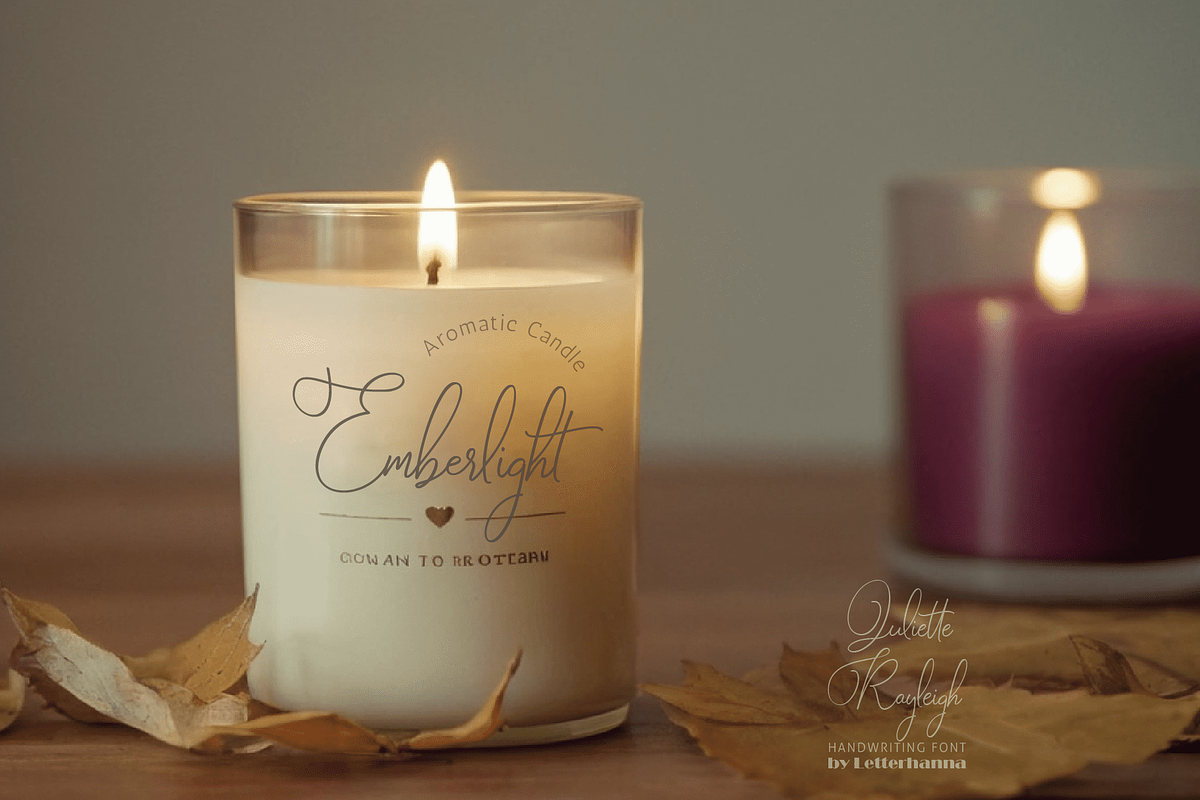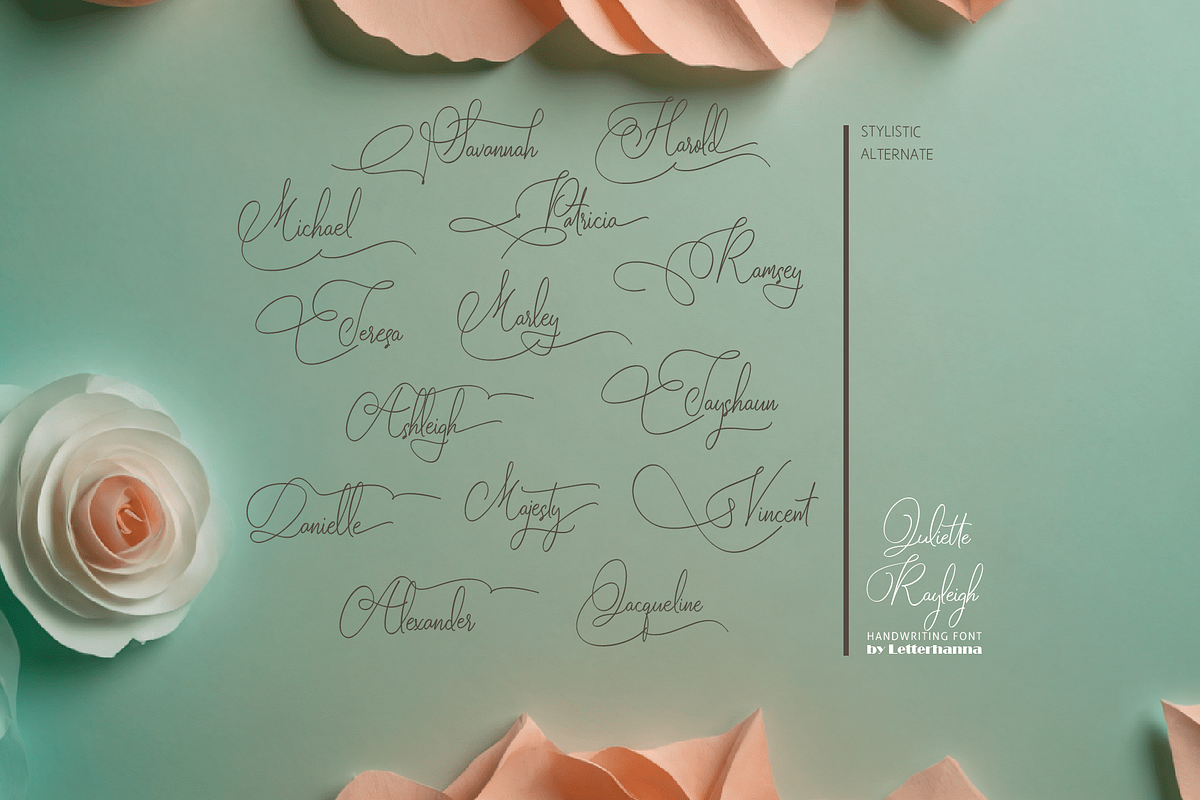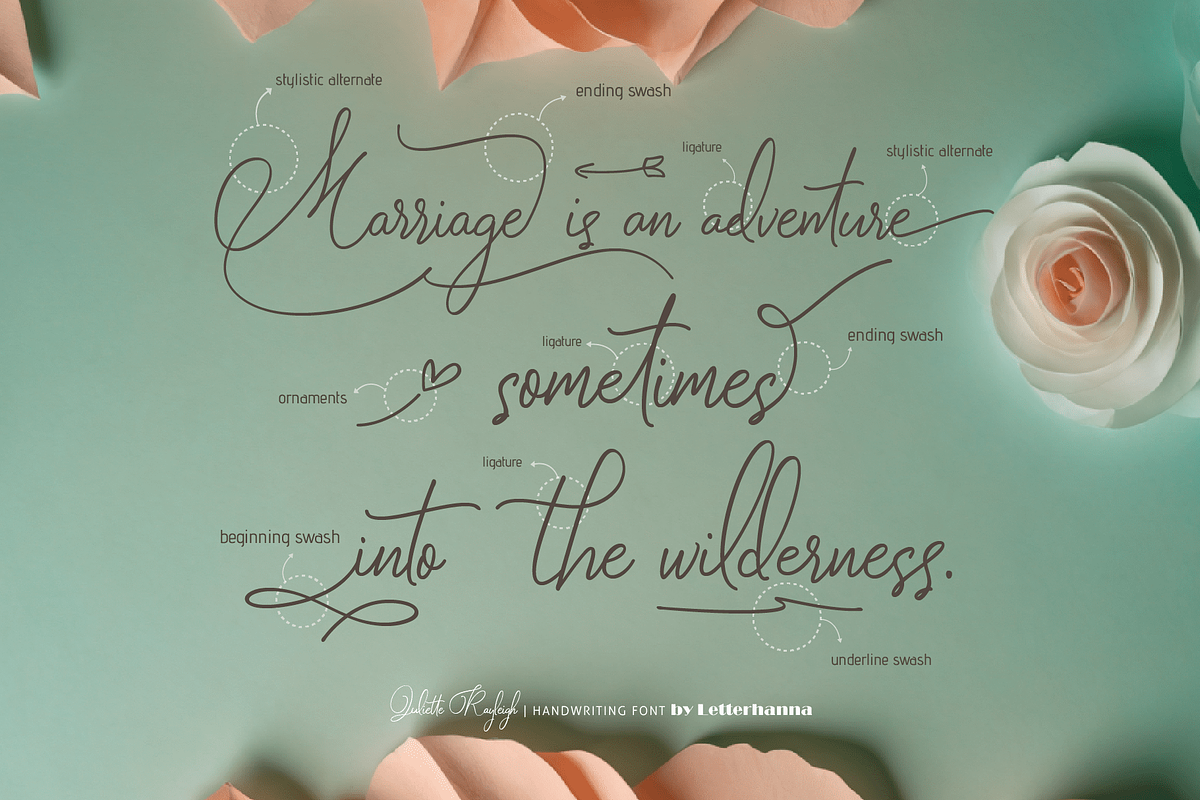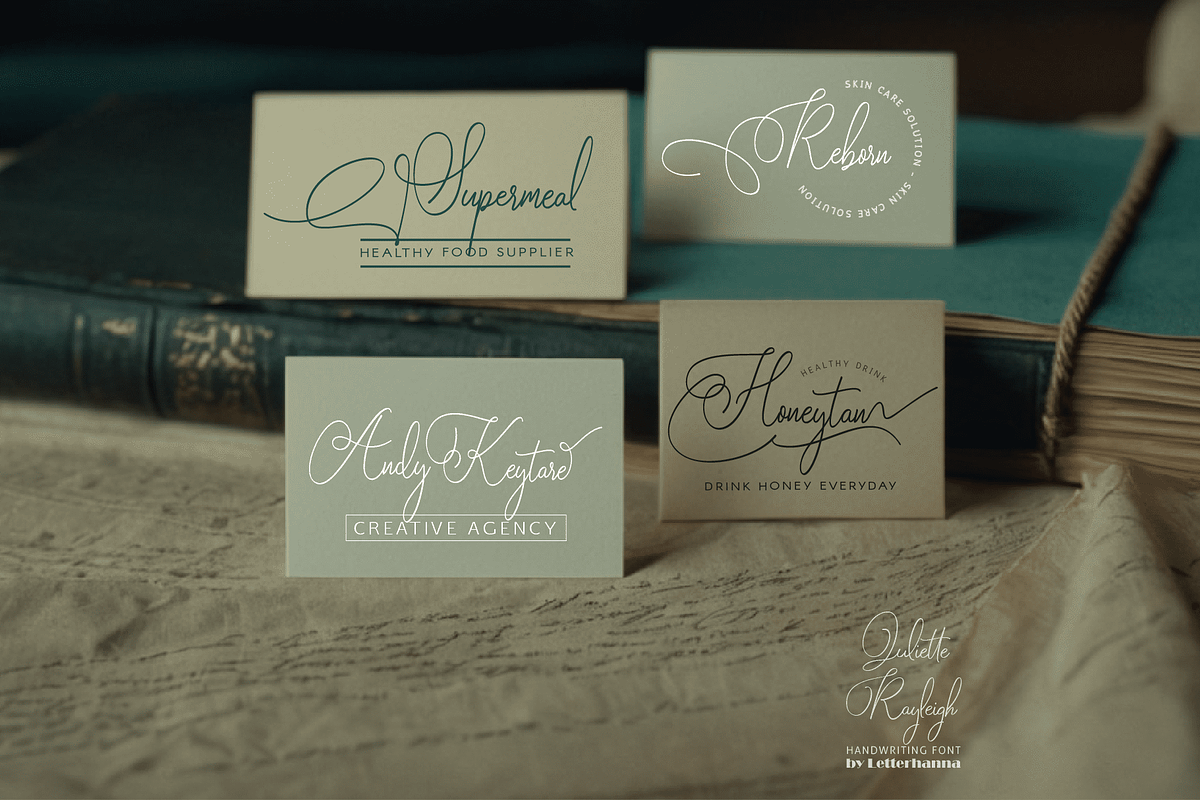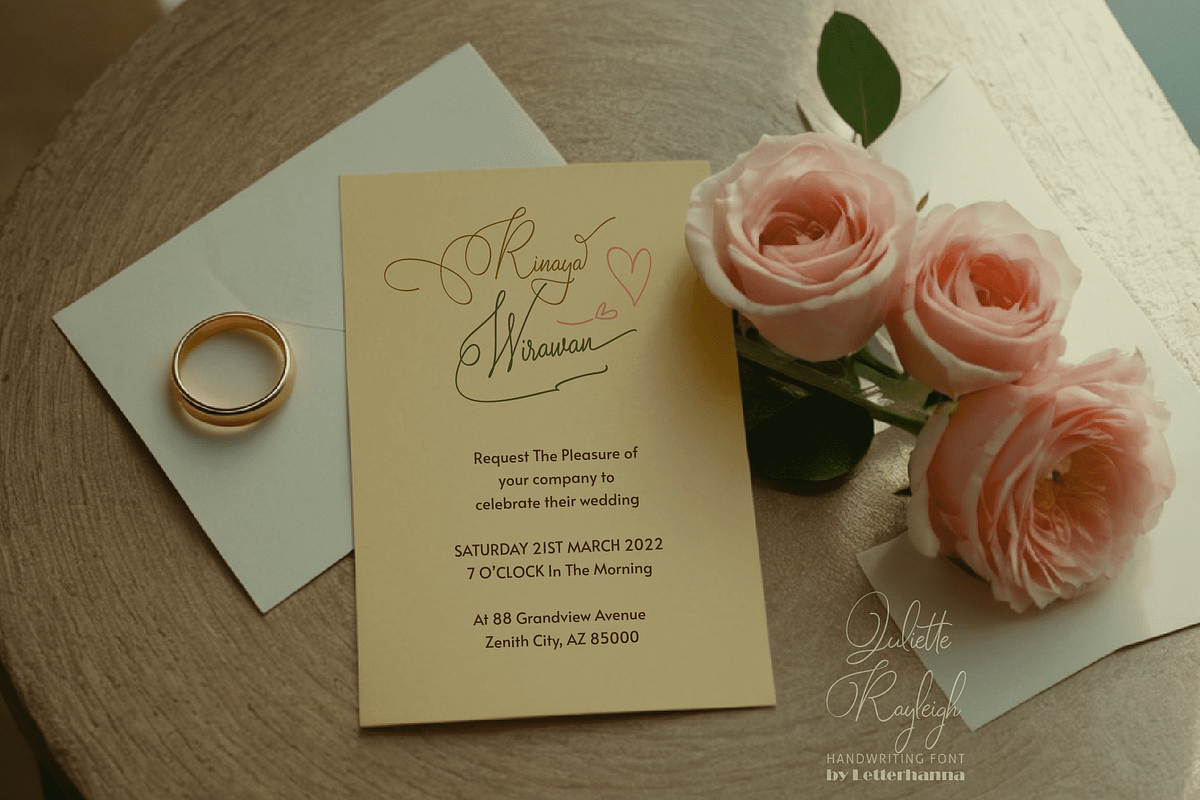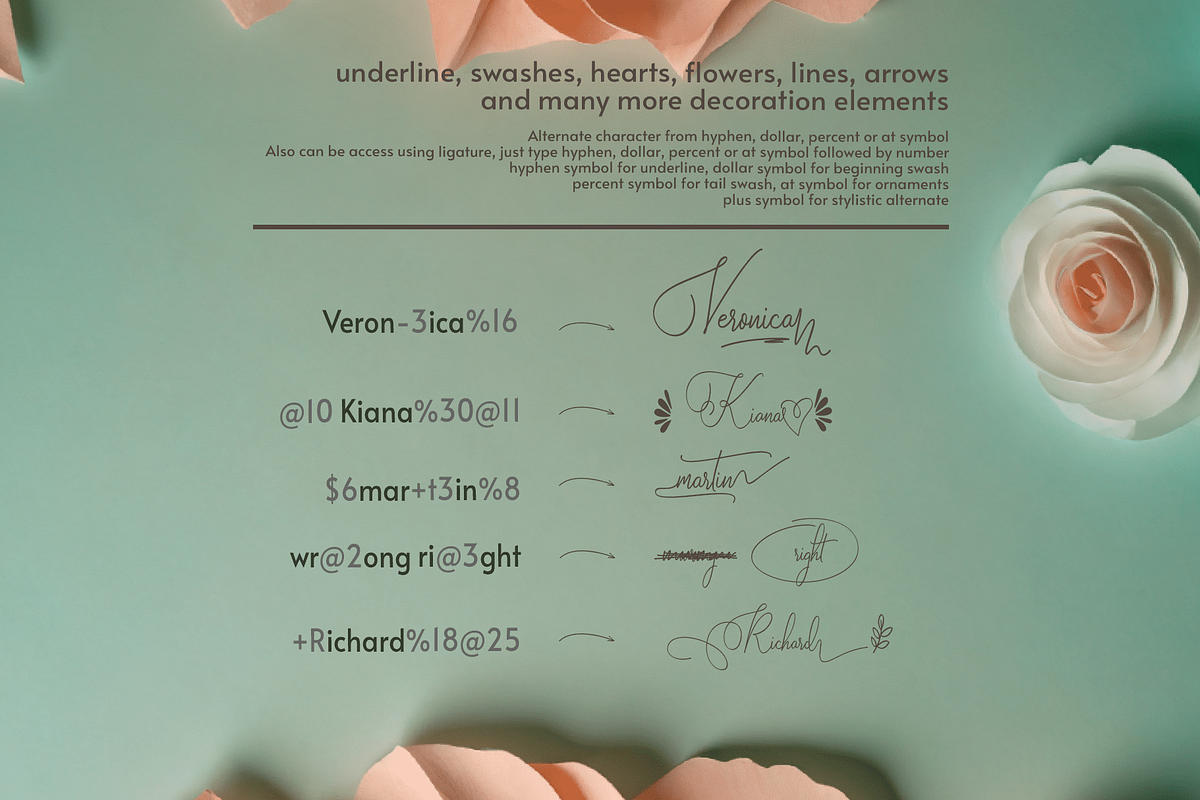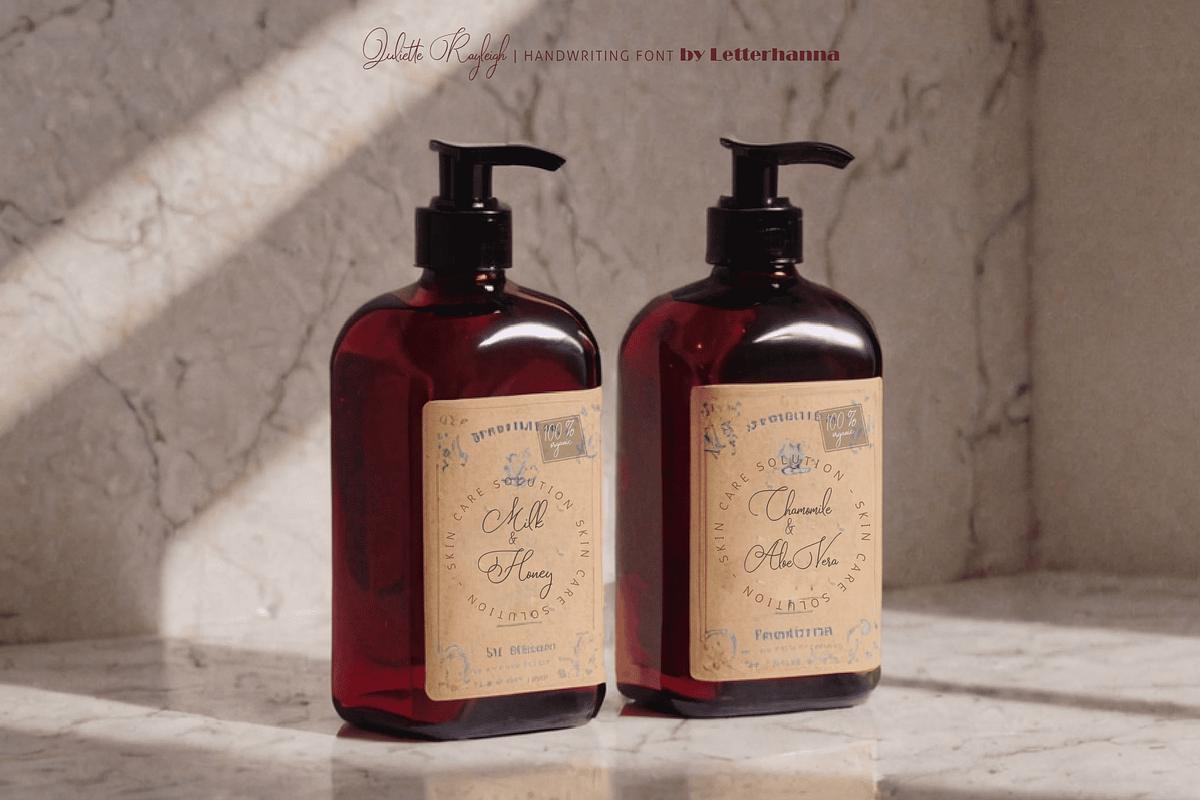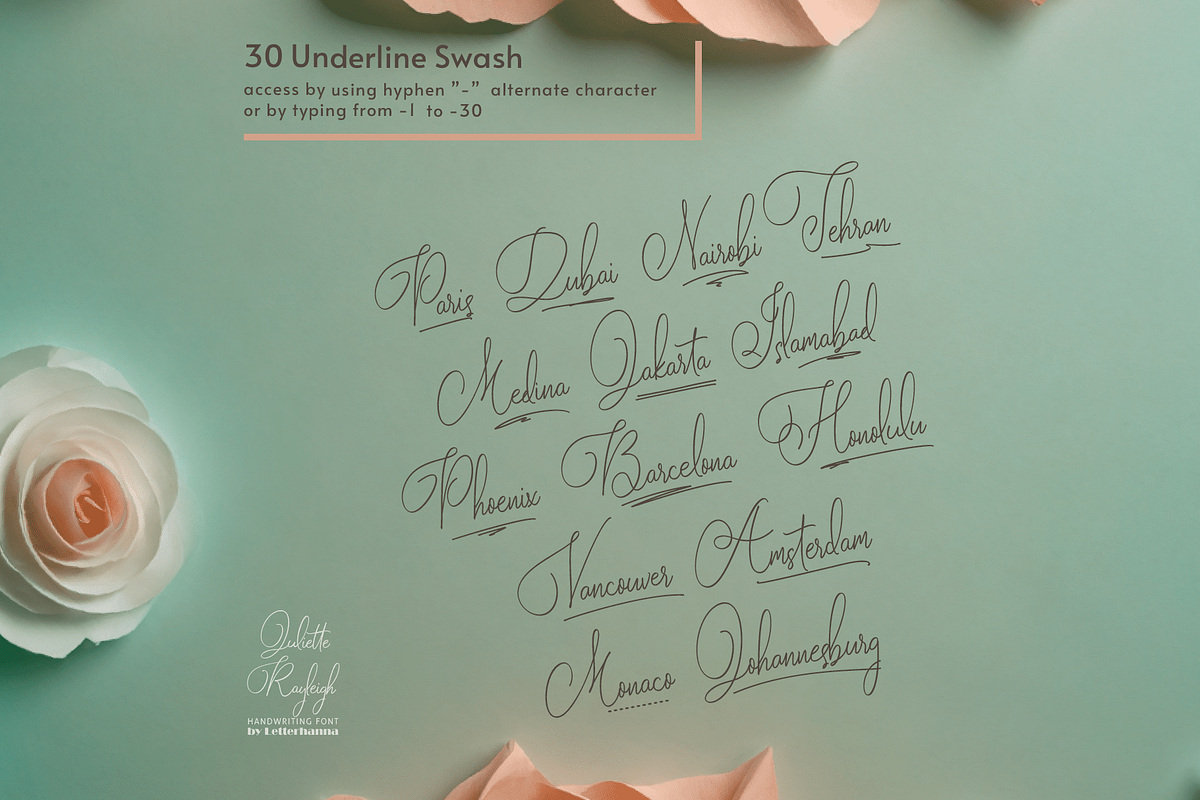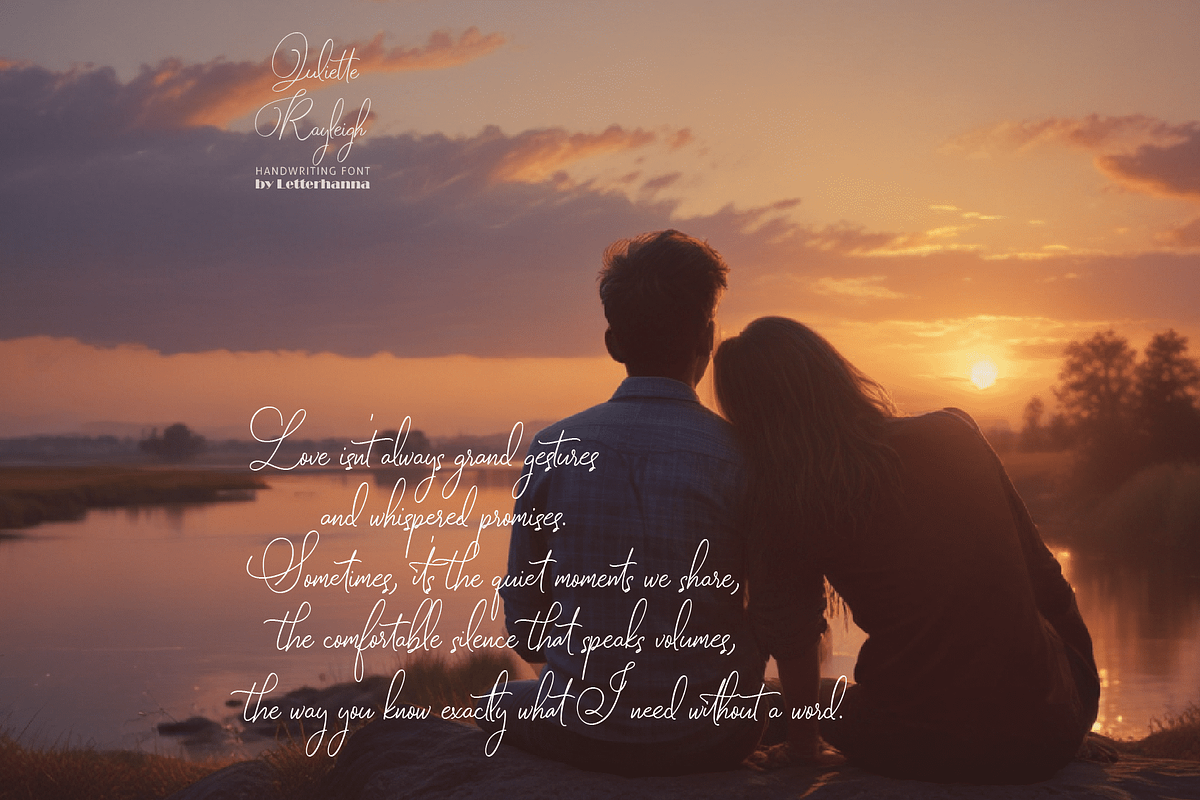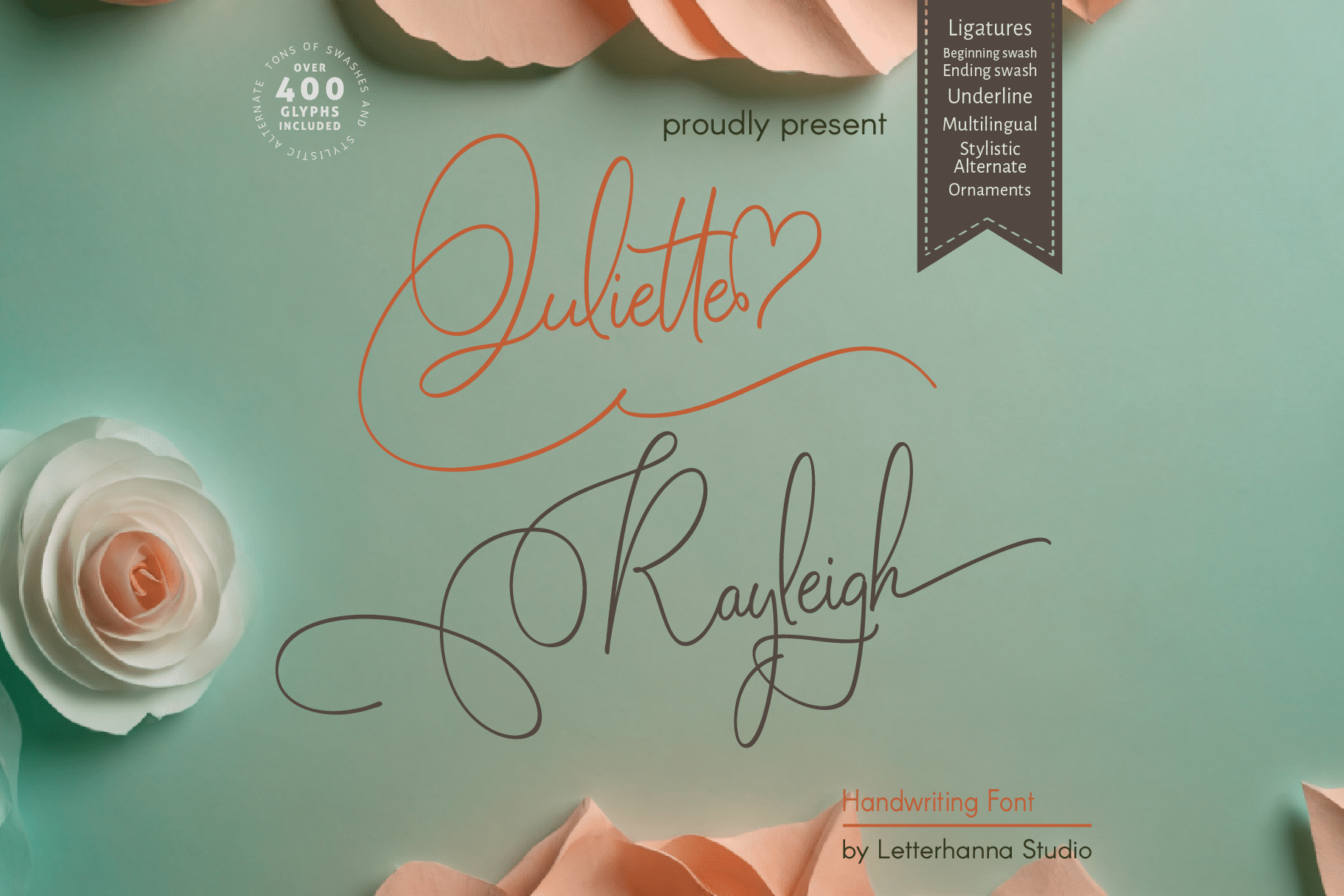
Juliette Rayleigh Font
Introducing Juliette Rayleigh, a new typeface that embodies timeless elegance and classic charm. Juliette Rayleigh is more than just a font; it's a calligraphic invitation to a world of sophistication. Designed with the modern writer in mind, this script boasts a beautiful balance of classic letterforms and a touch of contemporary flair.
Delve deeper into Juliette Rayleigh's world and discover a treasure trove of stylistic alternates, swashes, and ligatures. These design elements offer endless possibilities for customization, allowing you to craft text with a truly unique touch. Whether you're gracing wedding invitations, composing heartfelt letters, or designing captivating logos, Juliette Rayleigh empowers you to express yourself with unparalleled elegance.
Easy Access to Glyphs and Swashes
Accessing Stylistic Alternates
Stylistic alternates can be accessed by typing a plus symbol "+" in front of the original letter. For example, type "+a" to get the stylistic alternate of the letter a.
Accessing Swashes and Ornaments
Underline Swashes: Use a hyphen symbol "-" followed by a number between 1 and 30. For example, type "-3", "-22", or "-17" to get various underline swashes.
Head/Beginning Swashes: Use a dollar sign "$" followed by a number between 1 and 9. For example, type "$2" or "$8" to get different head/beginning swashes.
Tail/Ending Swashes: Use a percent sign "%" followed by a number between 1 and 30. For example, type "%3" or "%15" to get various tail/ending swashes.
Ornaments: Use an "at" symbol "@" followed by a number between 1 and 26. For example, type "@4" or "@13" to get different ornaments.
PUA Encoding for Ease of Use, which means you can access all the glyphs and swashes with ease!
Uppercase and lowercase letters
Numbers and punctuation marks
Beginning and ending swashes
Underline swashes
Stylistic alternates
Ornaments
Easy access to swashes using ligatures